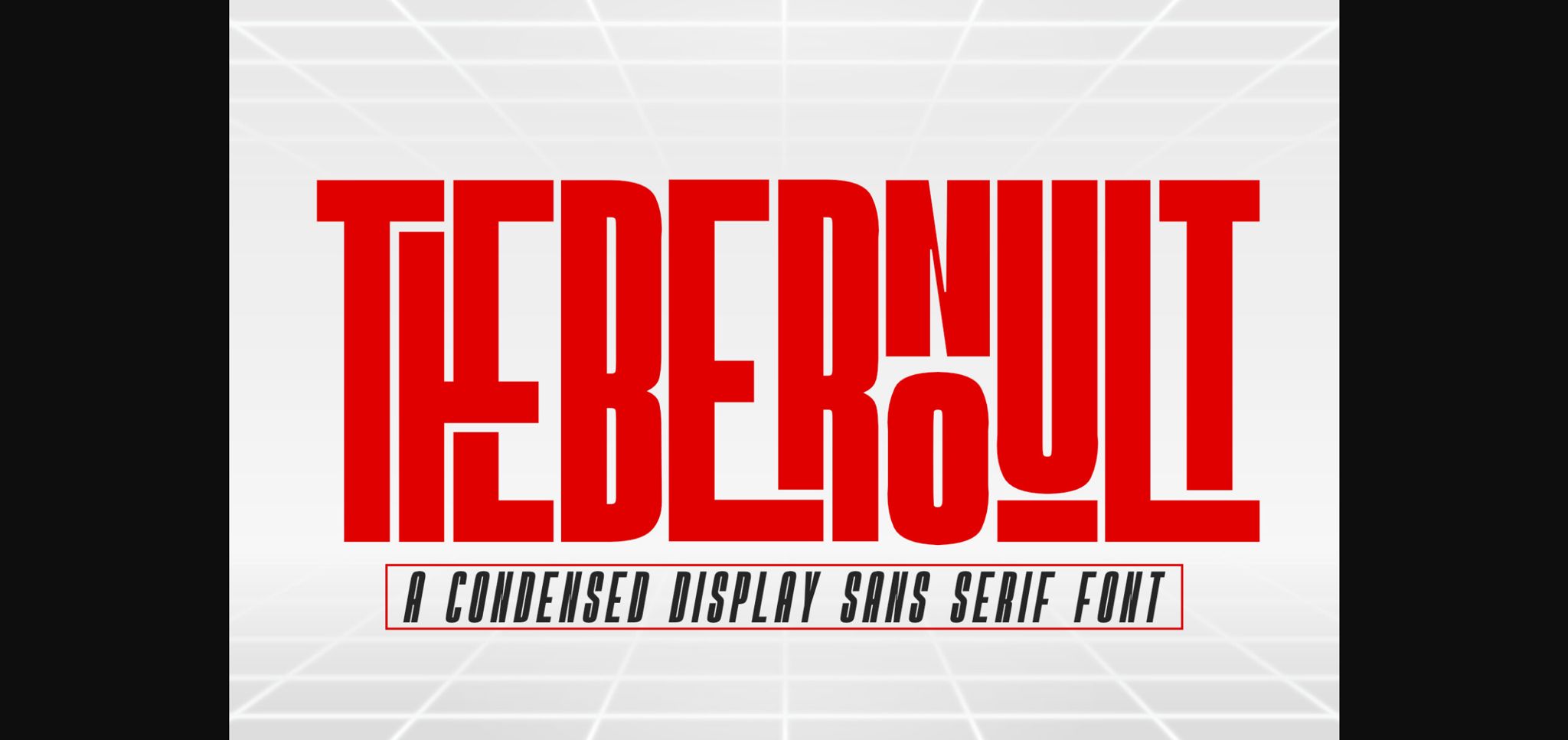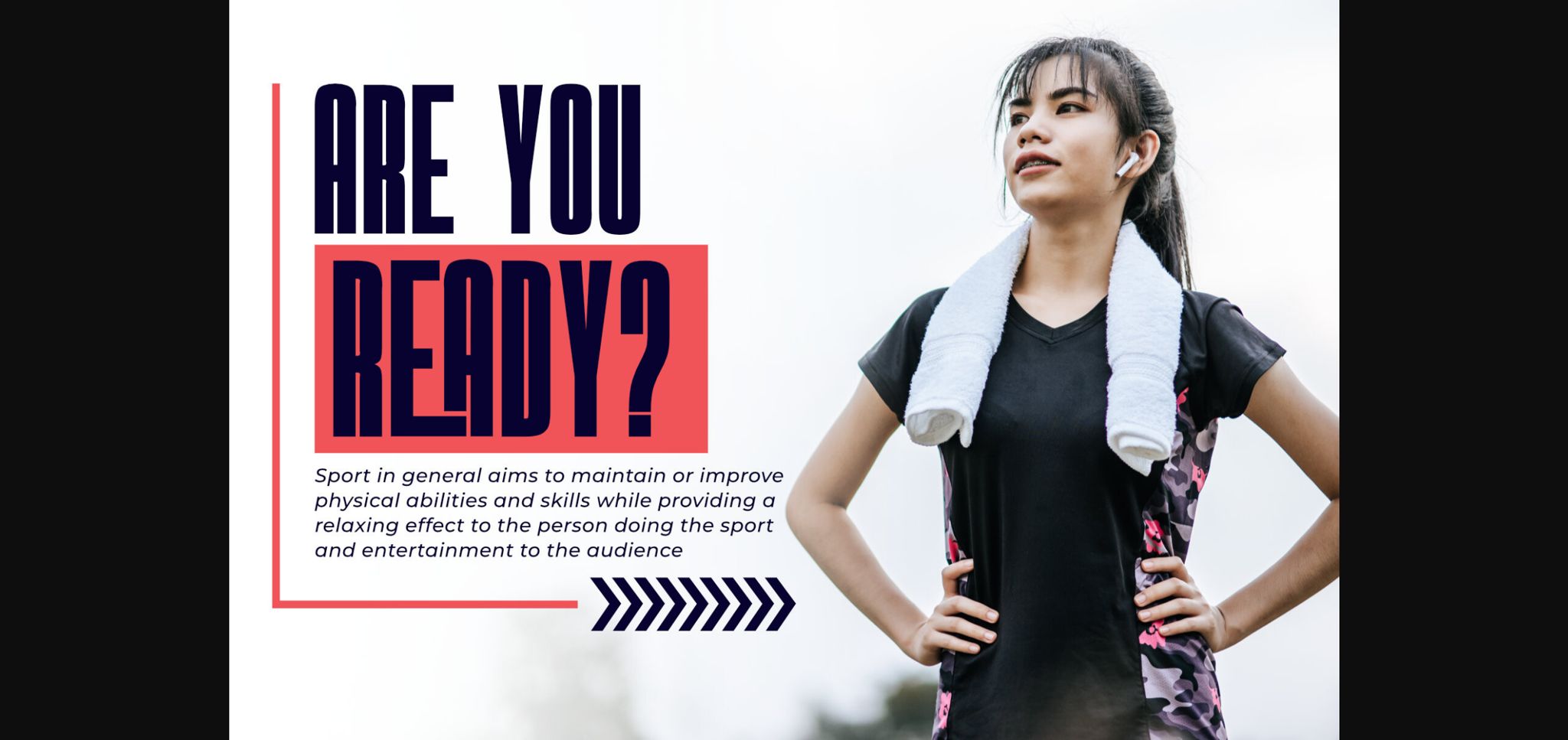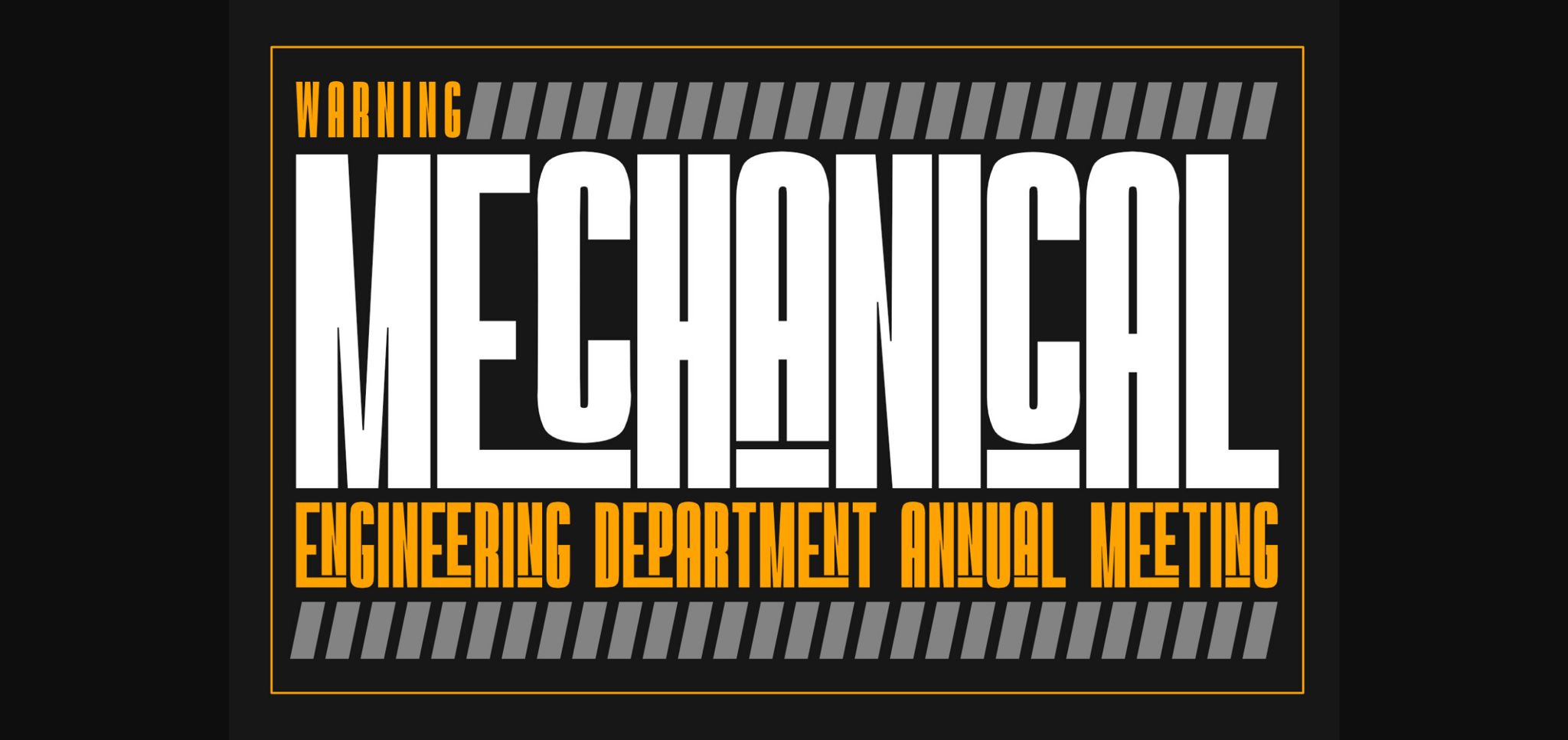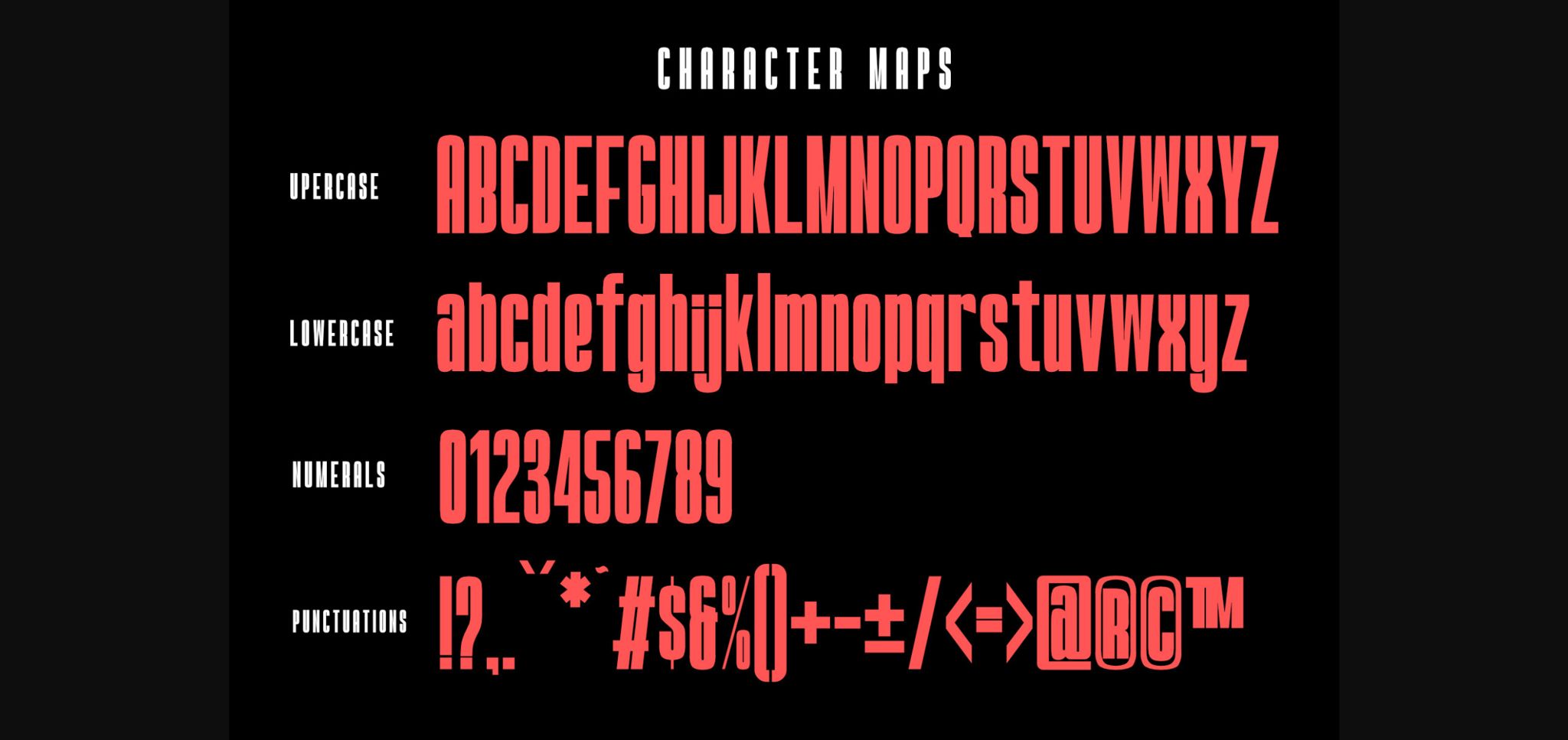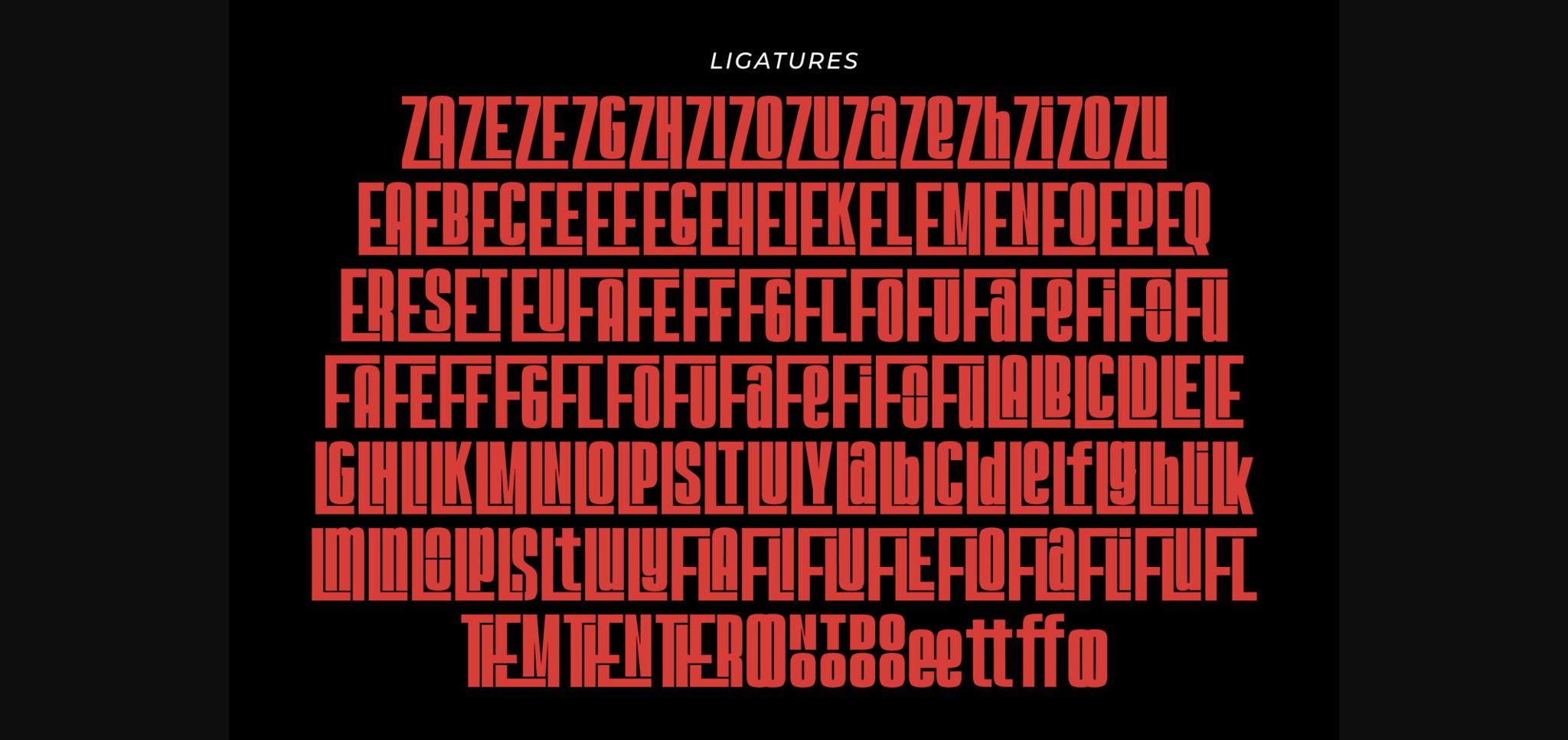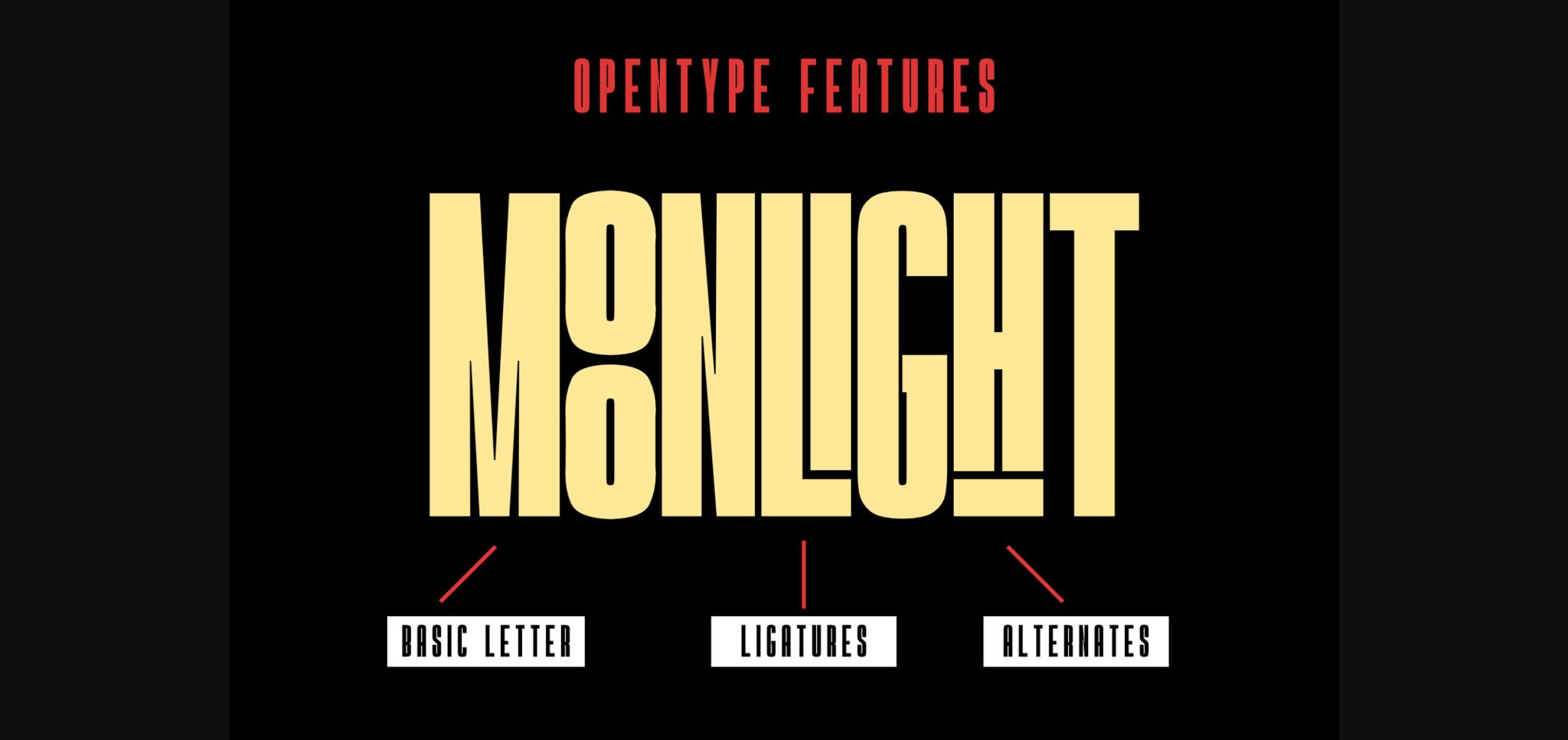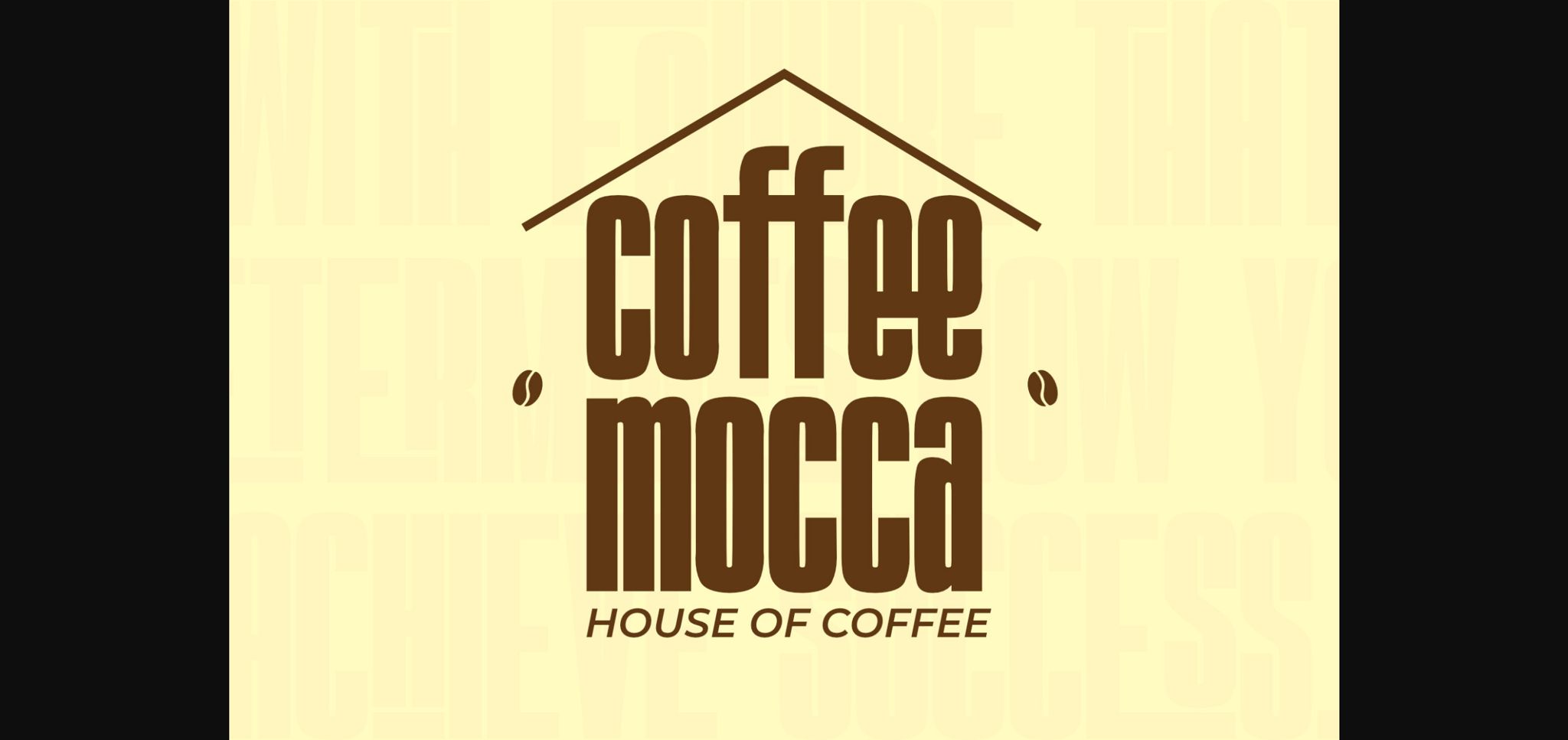
About Thebernoult Font
thebernoult is a sans serif font that is ideal for t-shirt design, brand logo, and fashion branding. It has a clean and minimalist design that will give your projects a stylish and modern touch. Whether you want to create a casual or formal look, font The Bernoult can help you achieve it.